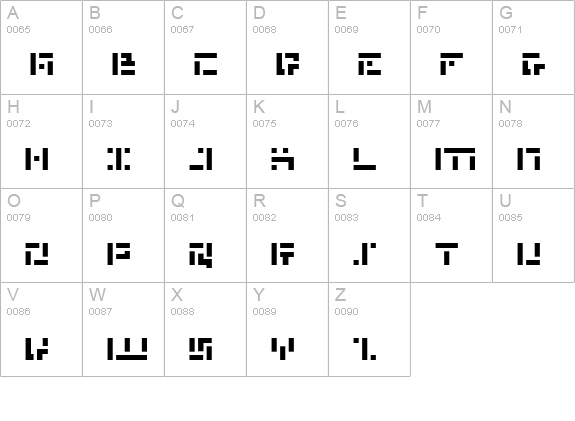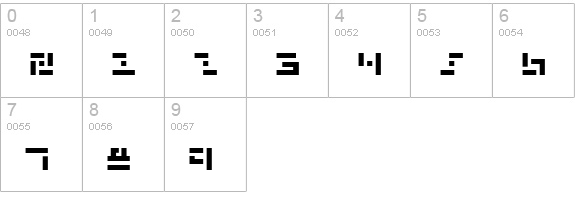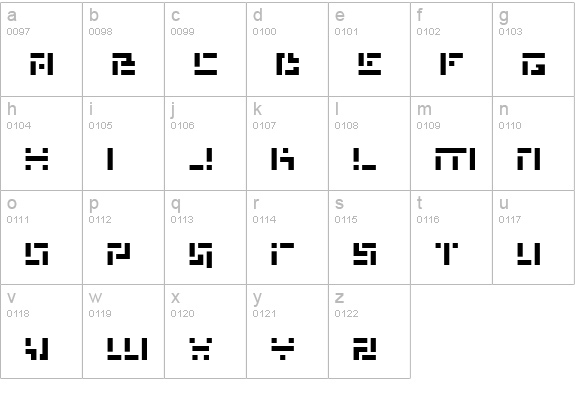
Missile Man font is a bold and dynamic typeface that exudes power and energy. With its sharp lines and futuristic aesthetic, this font is perfect for projects that require a strong and impactful visual presence. Whether you're designing posters, logos, or headlines, Missile Man font will make your text stand out with its commanding presence. And the best part? Missile Man font is completely free to download at FontsMarket.com. So you can add this powerful font to your collection without breaking the bank. Don't miss out on the opportunity to elevate your designs with the striking Missile Man font today!